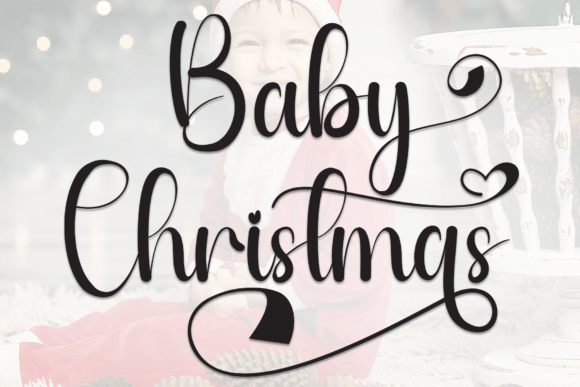
The Perfect Font to Spread Holiday Cheer
There’s nothing quite like the feeling of wrapping up a design project and stepping back to admire the finished result. But, what if you could add an extra layer of joy and whimsy to your creations? That’s where the Baby Christmas Font comes in – a charming, handwritten display font that’s sure to put a smile on your clients’ faces and a twinkle in their eyes.
Whether you’re crafting wedding invitations that exude warmth and love, designing cards that spark smiles, or looking for a font to add a playful twist to your next project, the Baby Christmas Font is the perfect solution. Its lovable and entertaining character makes it an invaluable asset for designers looking to infuse their work with a sense of fun and friendliness.
Baby Christmas Font Key Features
- Unique Characteristics: Features a playful, cursive script with festive holiday elements, making it perfect for Christmas-themed designs.
Baby Christmas Font Review
Overall, I’d say the Baby Christmas Font is a fun and playful addition to any holiday design project. ✨ The font’s rounded edges and cute illustrations make it perfect for creating a whimsical and childlike atmosphere.
- ✨ The font’s consistency in design makes it easy to use across various elements, from headings to body text.
- ✨ The illustrations are well-detailed and add a touch of personality to the font.
- ✨ The font is available in multiple weights, making it versatile for various design applications.
- ⚠️ The font’s size may not be suitable for large-scale text or headings, as it can become too childish and overwhelming.
- ⚠️ The illustrations may not be suitable for designs that require a more minimalist approach.
Overall, I think the Baby Christmas Font is a great choice for holiday designs, especially those targeting a younger audience. However, it may not be the best fit for more sophisticated or minimalist designs. With some careful planning and consideration, it can be a wonderful addition to your holiday design project.
For a festive touch, combine the font with Christmas-themed graphics and colors.
For a unique look, experiment with combining the font with custom graphics and effects.
For a cohesive look, use the font consistently throughout your design.
Some common use cases for the “Baby Christmas Font” include:
- Christmas card designs
- Holiday party invitations
- Christmas-themed social media graphics
For the most effective use of the font, experiment with combining it with festive colors and graphics, and use it consistently throughout your design.
Alternatives to Baby Christmas Font
Creamy Christmas
Creamy Christmas is a playful, handwritten font perfect for creating a warm and inviting atmosphere. It’s ideal for use in holiday cards, gift tags, and other festive designs. Compared to Baby Christmas Font, Creamy Christmas has a more elegant and refined feel, making it suitable for more sophisticated designs.
Wonderland Script
Wonderland Script is a whimsical, cursive font that evokes the magic of the holiday season. It’s great for use in children’s books, party invitations, and other playful designs. Unlike Baby Christmas Font, Wonderland Script has a more fluid and dynamic feel, making it perfect for designs that need a touch of whimsy.
Merriweather Christmas
Merriweather Christmas is a classic, serif font with a warm and traditional feel. It’s ideal for use in formal holiday invitations, cards, and other designs that require a sense of elegance and sophistication. Compared to Baby Christmas Font, Merriweather Christmas has a more formal and refined feel, making it suitable for more formal designs.